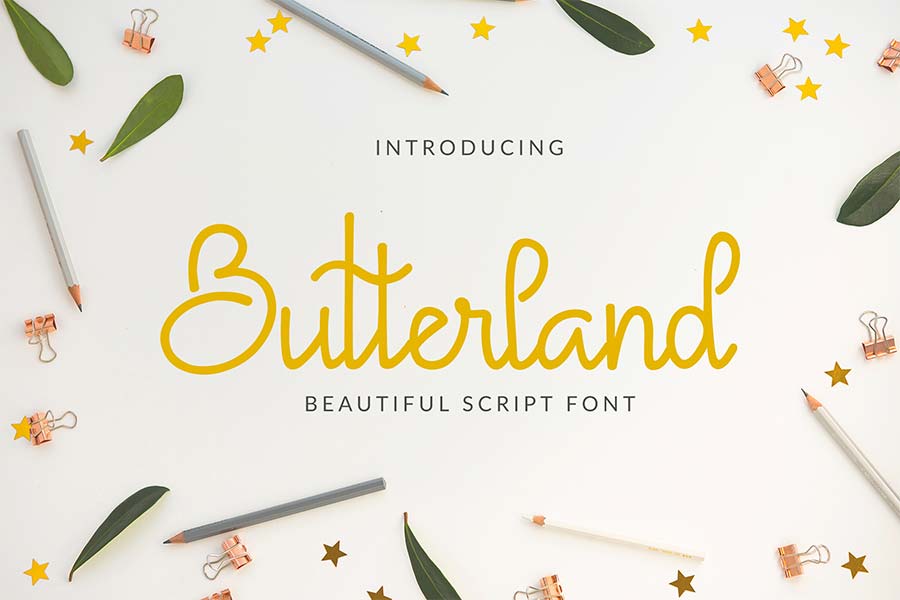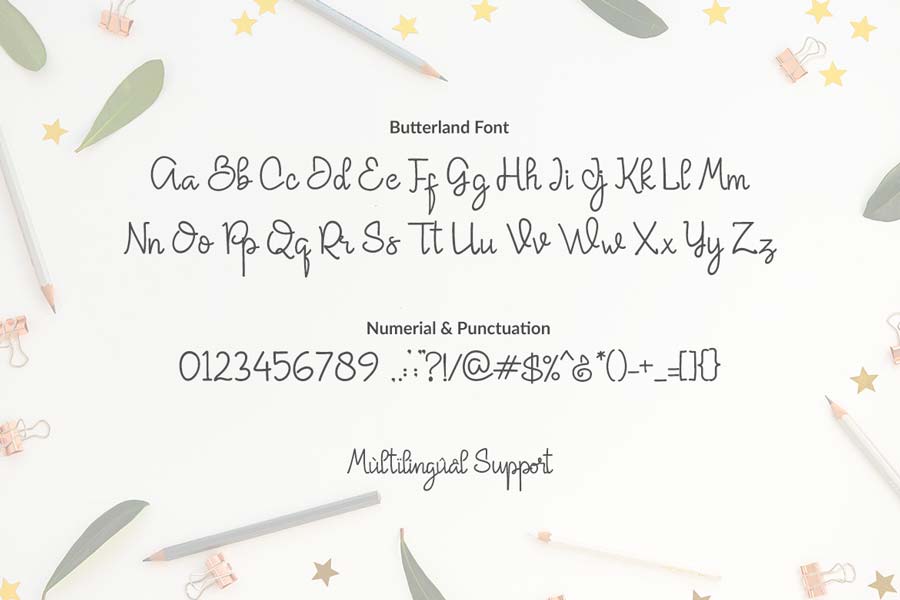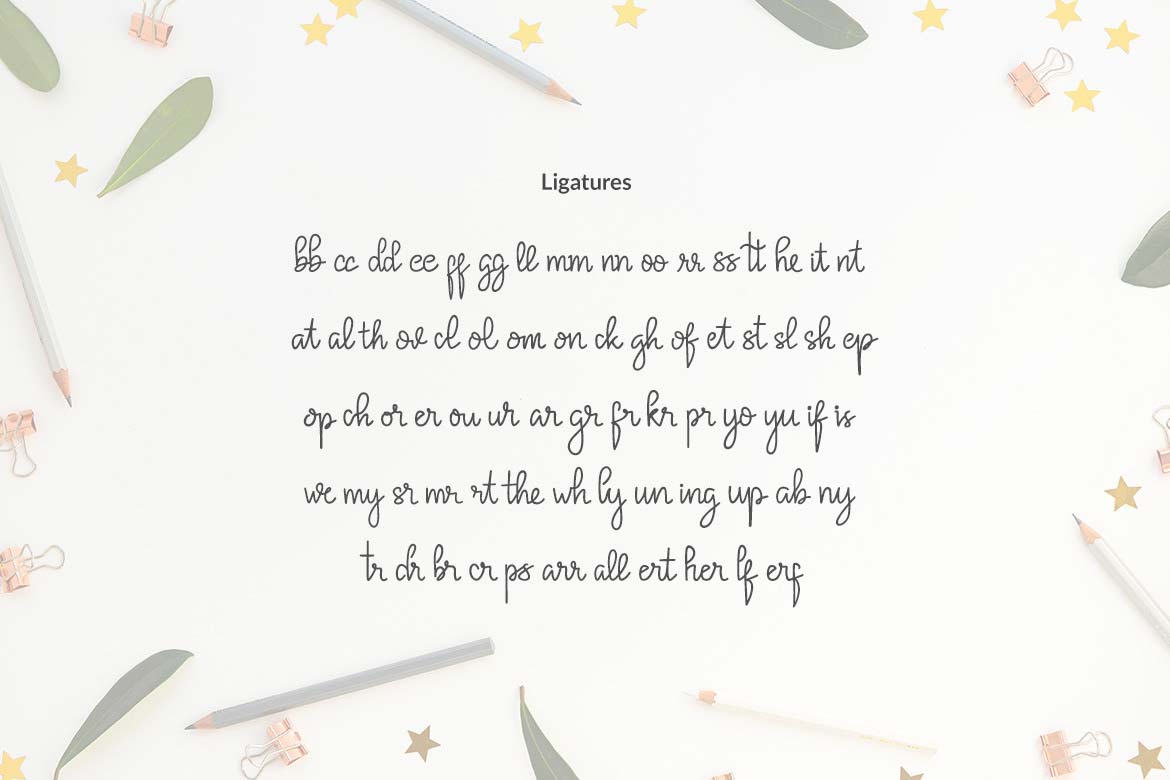
Butterhand is a beautiful handwritten font with high legibility. The letters were connected harmonically, creating the cohesive and tidy handwriting typography design.
This font emits elegance and personality, a perfect choice for branding, marketing and other collaterals. You can download the free demo version to try out which only comes with alphanumeric characters. Full version is available to purchase if you intend to use it commercially.
- Designer: Rangga Subekti
- Category: Handwriting